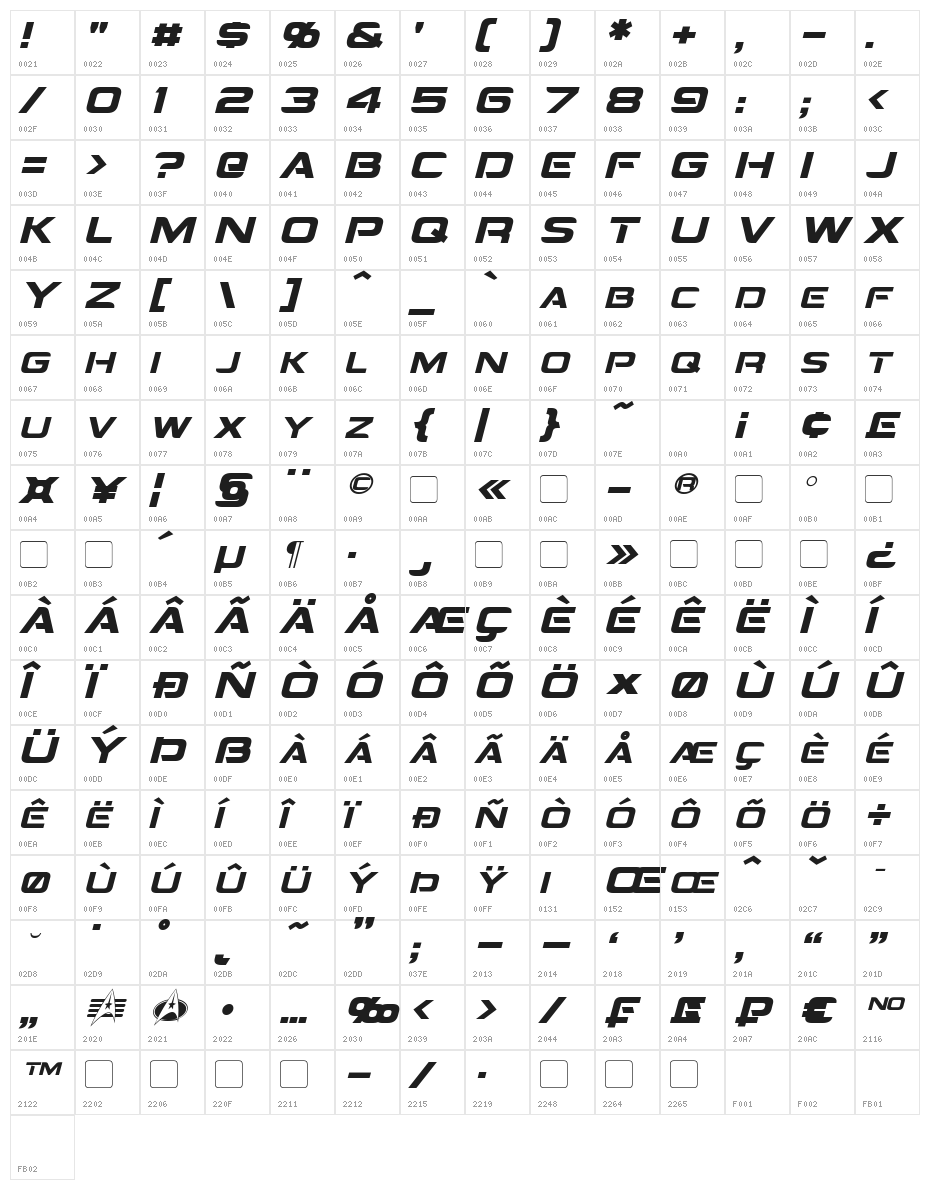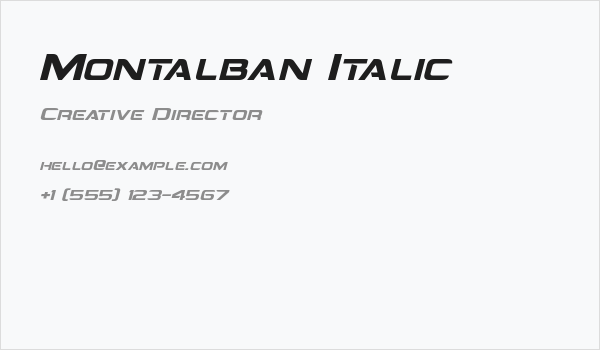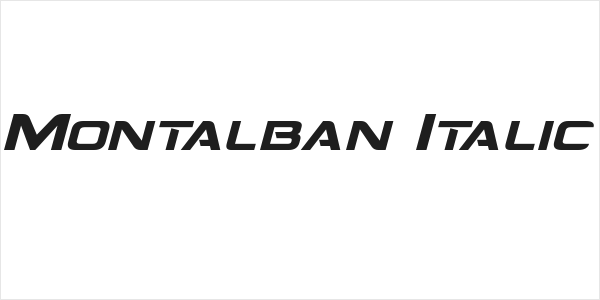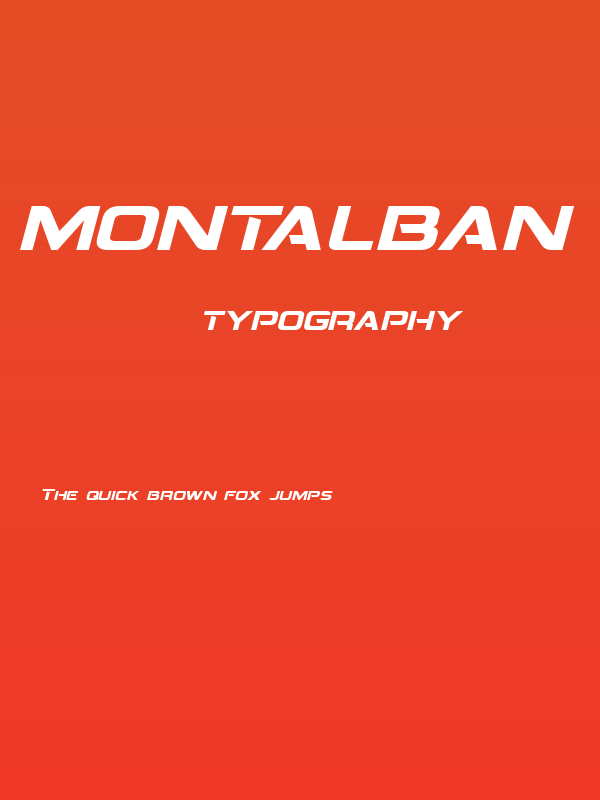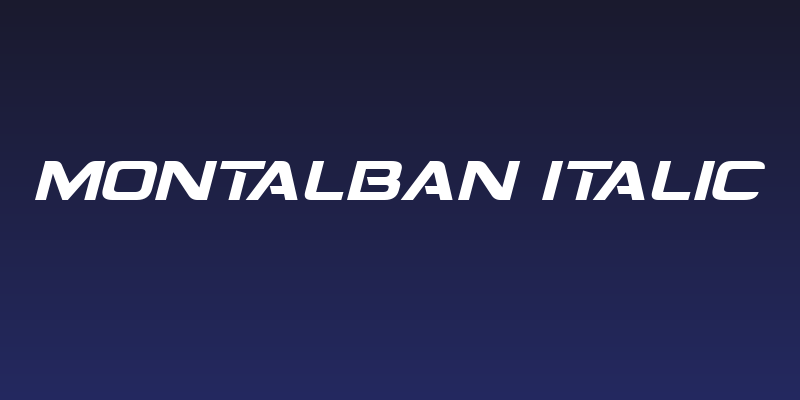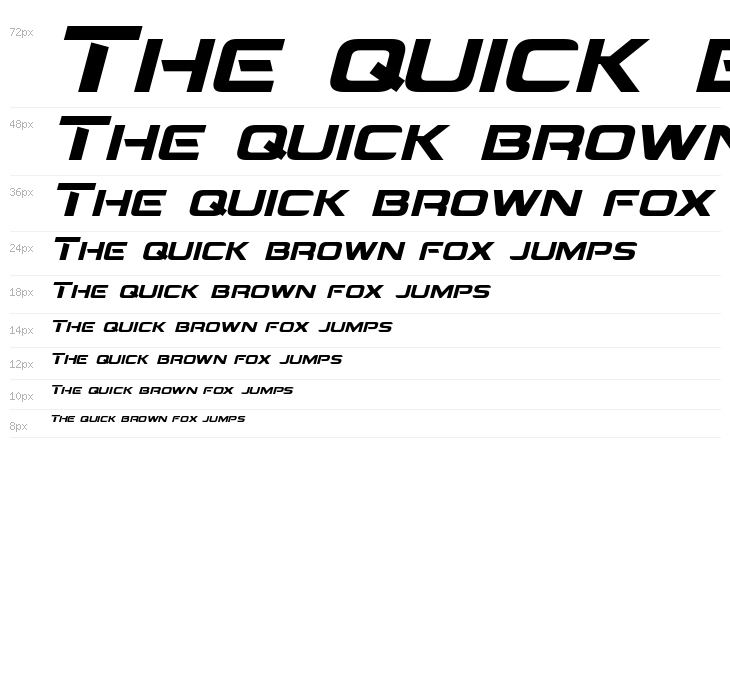
Montalban Italic Font
Montalban Italic Description
This font features a sleek, italicized design with a modern and dynamic appearance. The characters are slightly slanted, giving a sense of motion and speed. The strokes are bold and consistent, providing a strong visual impact. The uppercase and lowercase letters maintain a uniform style, with smooth curves and sharp angles that enhance readability. The numerals are clear and distinct, matching the overall aesthetic of the alphabet. Special characters are well-integrated, maintaining the font's cohesive look. This font is ideal for projects that require a contemporary and energetic feel.
| Use Case | Logos, Headlines, Branding |
| Proposed Projects | Ideal for branding, sports team logos, automotive designs, and modern advertising campaigns. |